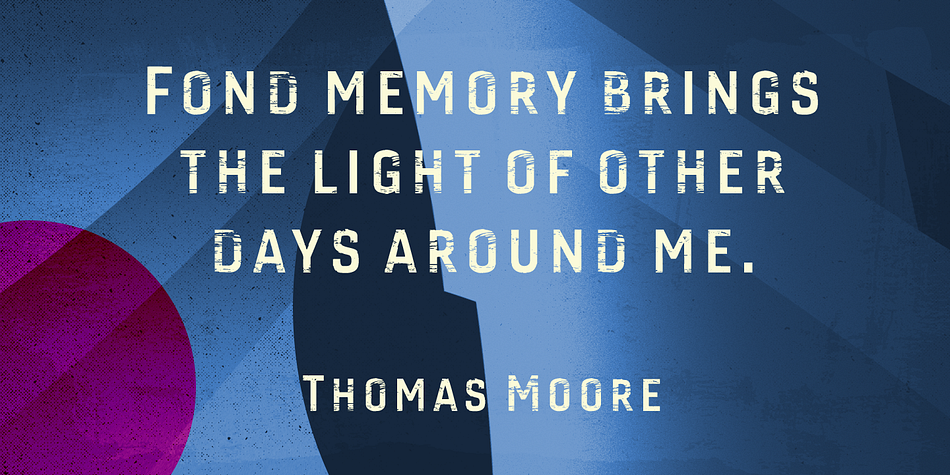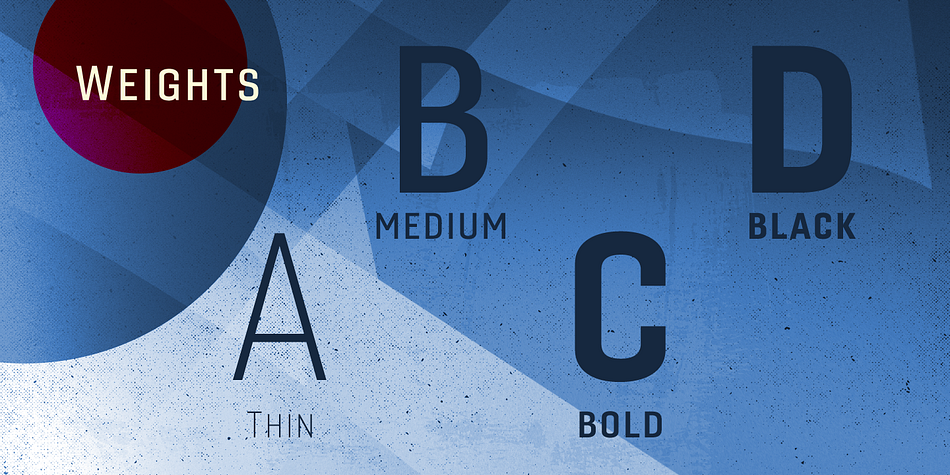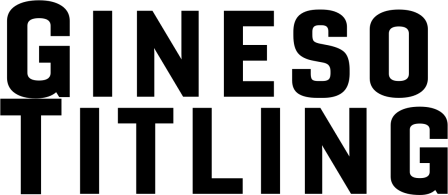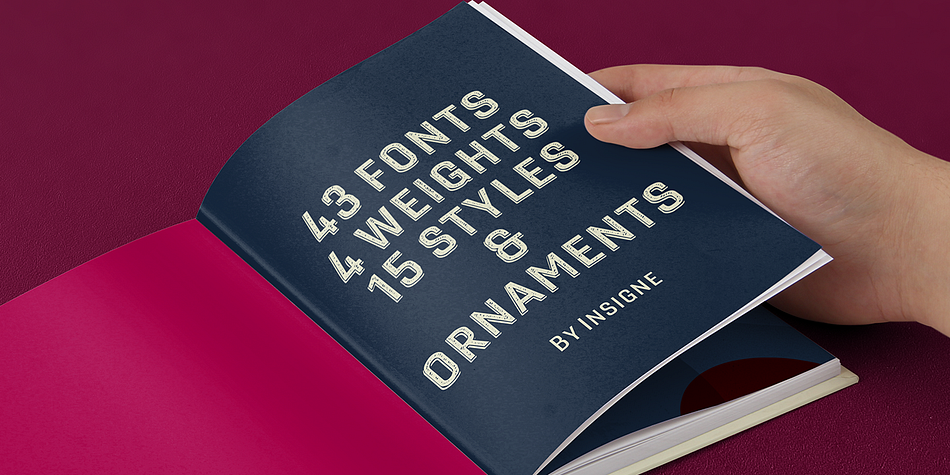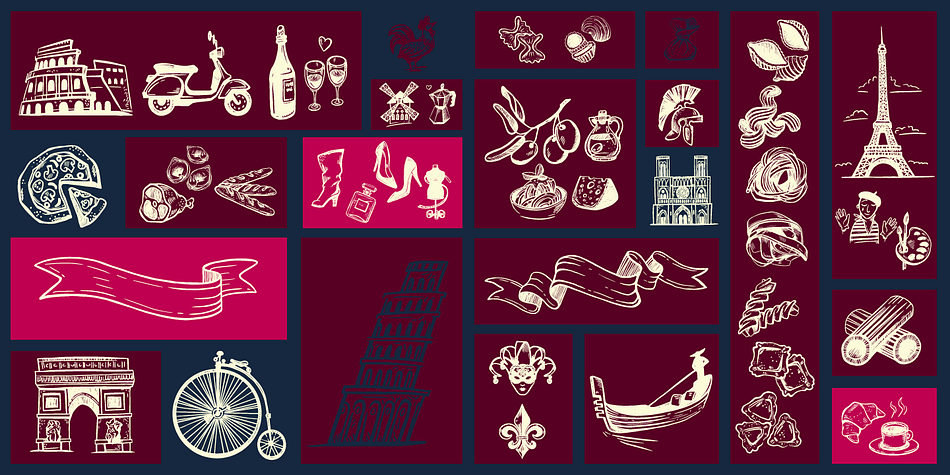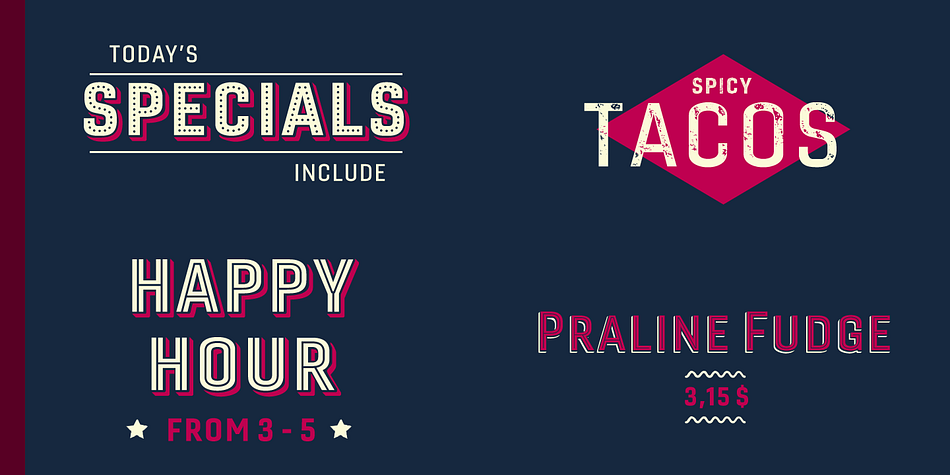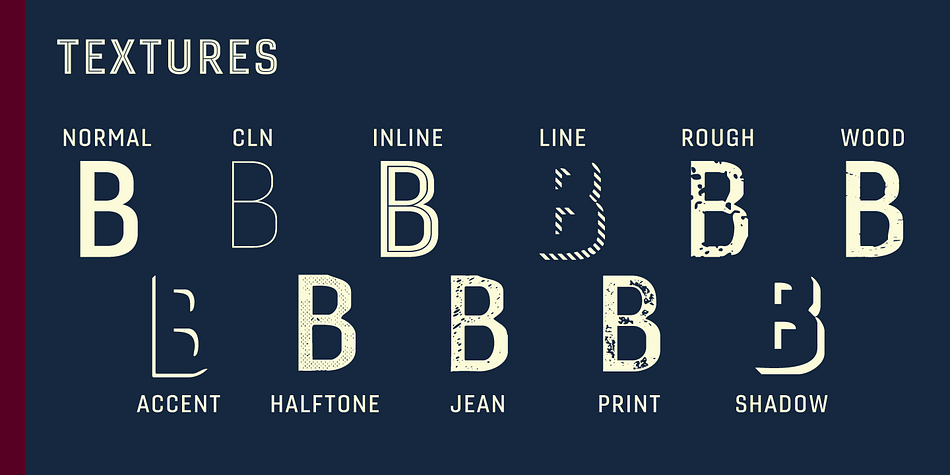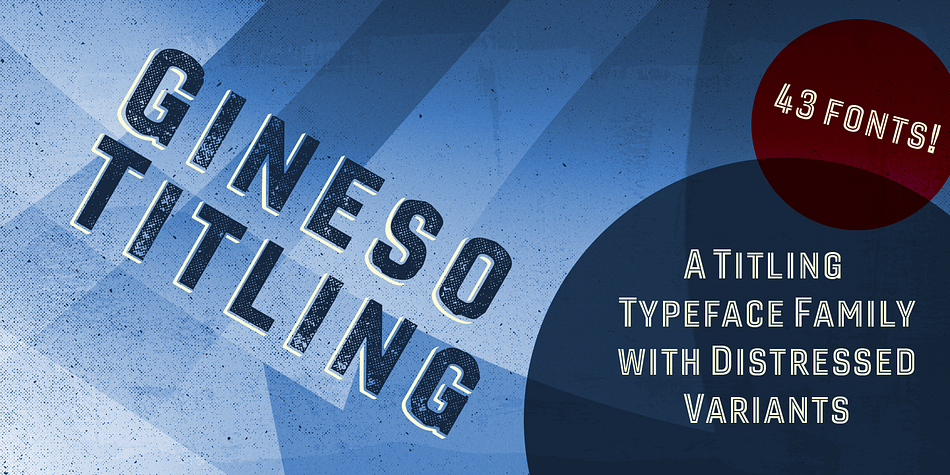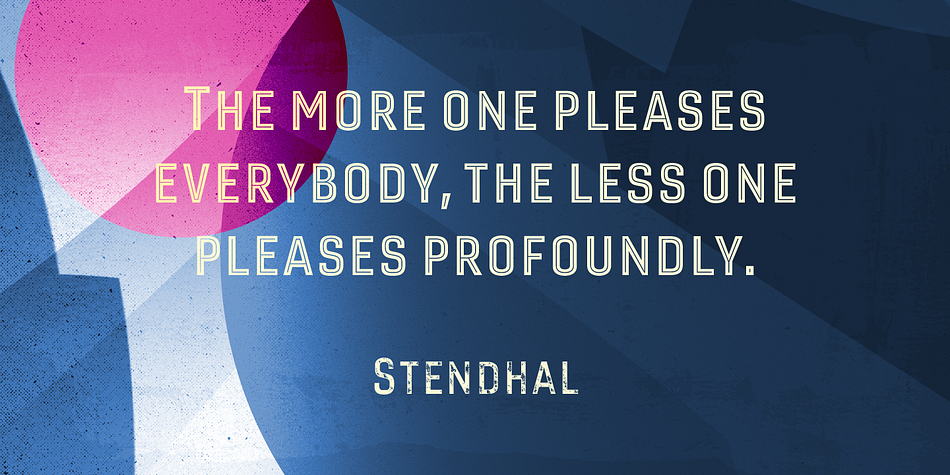
Designed by Jeremy Dooley, Gineso Titling is a dingbat and display sans font family. This typeface has forty-three styles and was published by Insigne Design.
Before the Great War, there were great posters. Posters of elegance and grandeur. Posters calling people to the pleasures of sunny southern France and to the perfections of northern Italy’s dolce vita.
Le Havre, based on a poster by AM Cassandre, was one of my first typefaces that took inspiration from this genre. Now, the golden memories of years past are the inspiration for insigne design’s new Gineso Titling as well. Gineso revives the retro forms of past poster design with its newly crafted sense of humanity, which is amplified by a great variety of texture options.
While the new forms are perfect for posters, this titling font is also ideal for bringing the charm of pre-war Southern Europe to a new bottle of wine, to fine foods and beverages, and to high-end logotypes. For the grandeur and elegance you need in your titling, look to Gineso Titling.